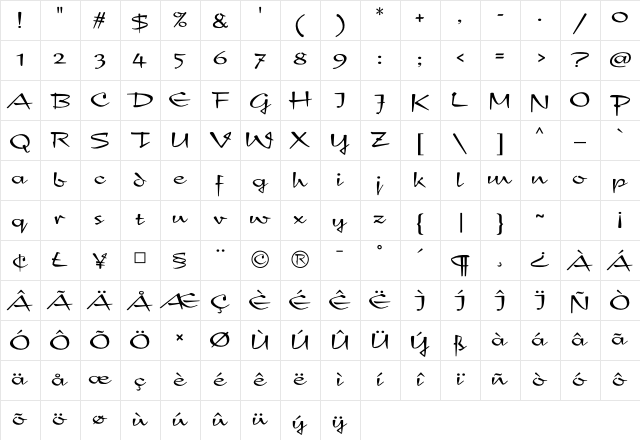
NewDay Script Free Font
NewDay Script
Style: Script
Design Context for NewDay
NewDay flows with the natural rhythm of handwritten lettering, making it ideal for designs that call for warmth and personal expression.
Font Pairing: Combine NewDay with a simple geometric sans for maximum contrast - the tension between flowing curves and clean structure is a classic typographic pairing.
Pro Tip: Use NewDay for short runs of text - names, titles, or taglines. Extended body copy in script faces tires the eye quickly.